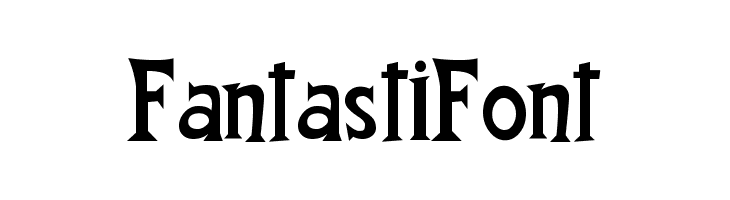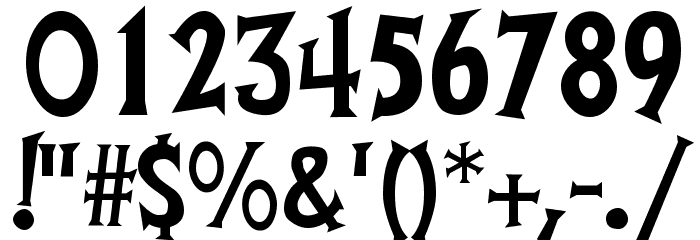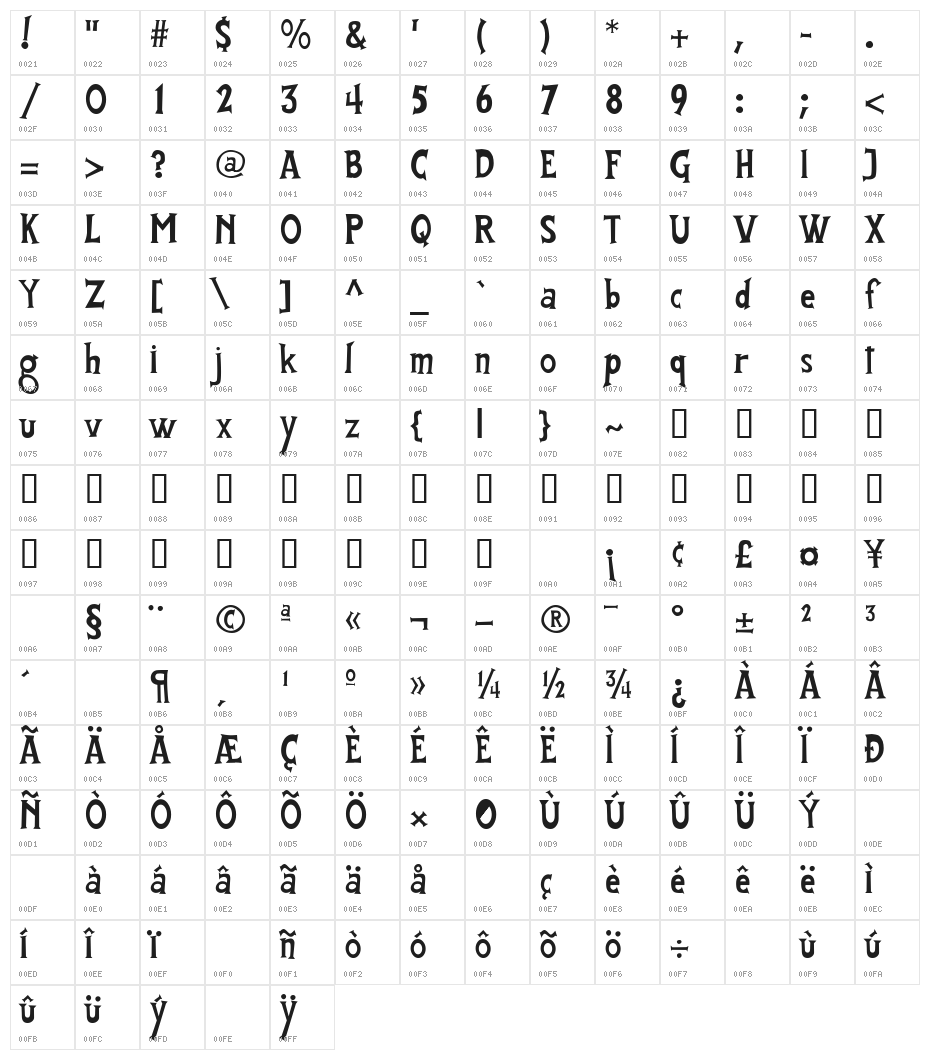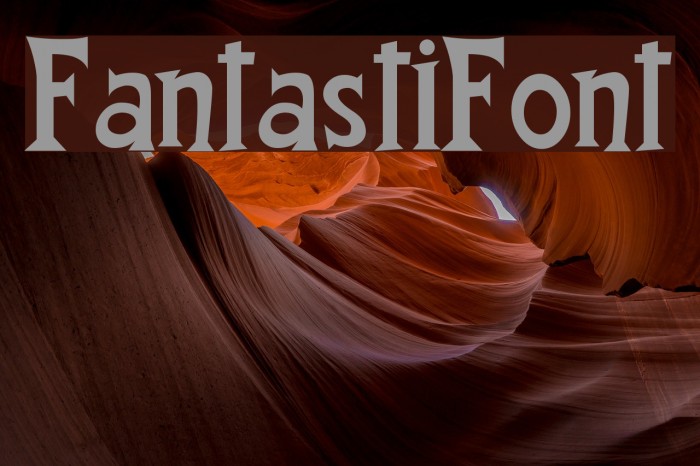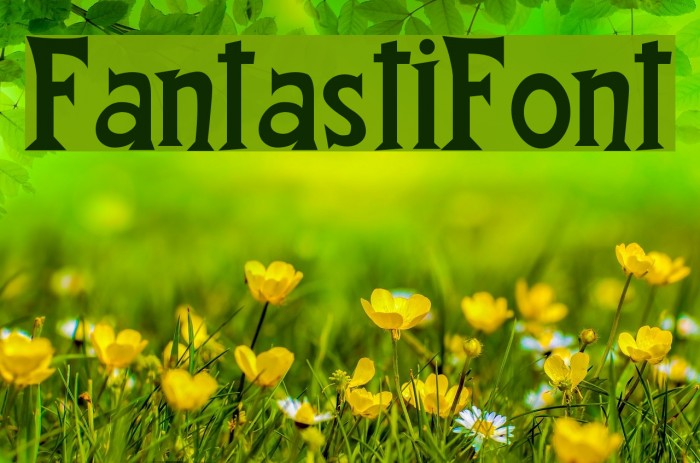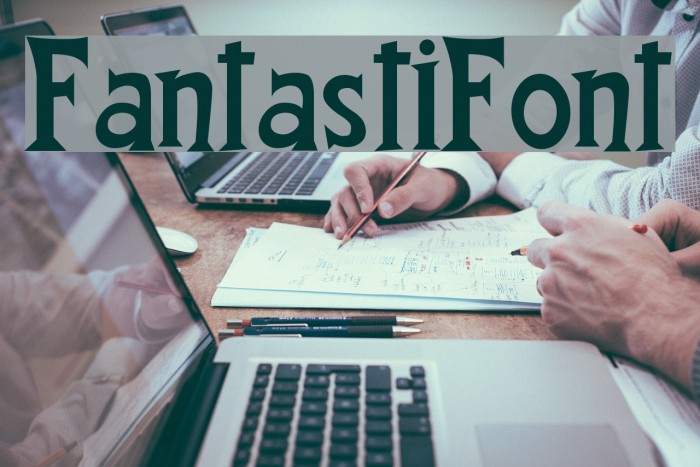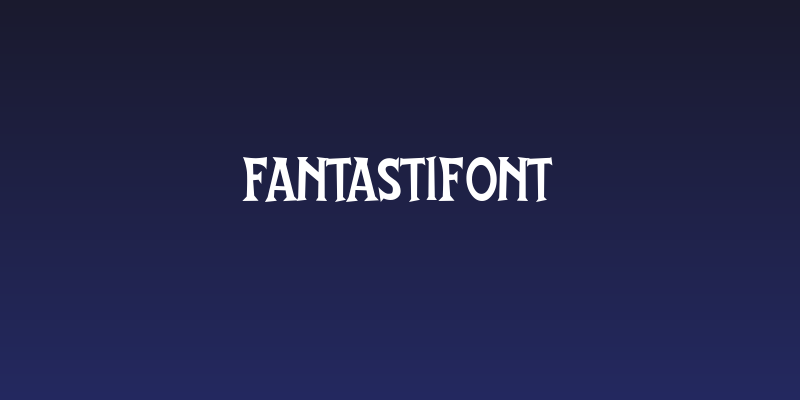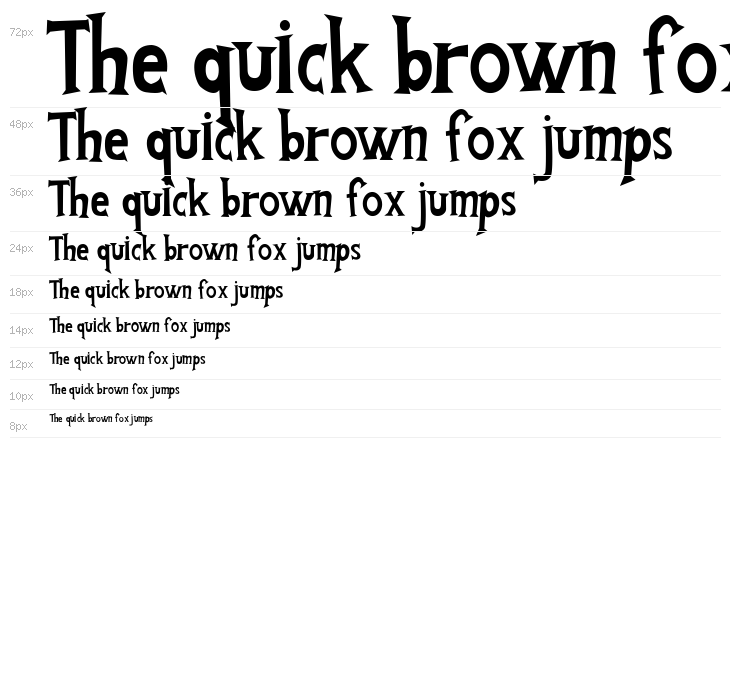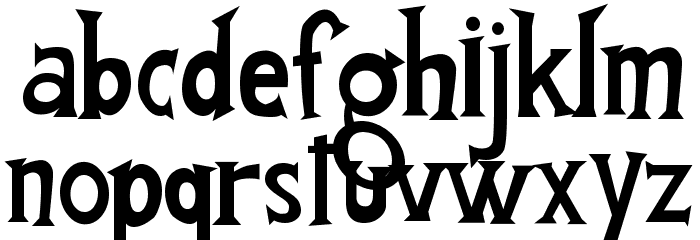
FantastiFont Font
FantastiFont Description
This font features a bold and dynamic style with sharp, angular serifs and a slightly medieval flair. The uppercase letters are particularly striking, with strong vertical lines and pointed edges that convey a sense of strength and authority. The lowercase letters maintain a consistent style, with a unique blend of curves and angles that add a touch of whimsy. Numbers are bold and easily readable, while special characters are designed to match the overall aesthetic. The font's distinctiveness makes it ideal for projects that require a touch of drama and elegance.
| Proposed Projects | Ideal for fantasy-themed designs, book covers, posters, and branding that requires a dramatic and elegant touch. |